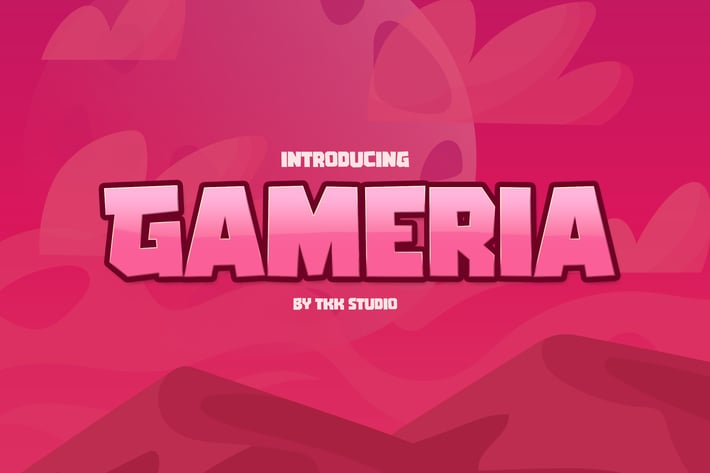
GAMERIA - Blocky gaming font
GAMERIA – A Bold and Action-Packed Font for Gamers
GAMERIA retro display font is crafted with heavyweight geometric forms, blocky terminals, and a playful, pixel-era attitude, making it a perfect fit for anything that needs an energetic, nostalgic vibe. Its thick structure ensures visibility even at a glance—ideal for vibrant gaming interfaces, children's books, or cartoon-style branding. The font’s presence is assertive yet fun, drawing inspiration from retro consoles while keeping its style crisp and versatile.
GAMERIA thrives in gaming culture, playful branding, and kids media design. It naturally draws attention on YouTube thumbnails, game titles, mobile app UIs, or educational content. Whether you're launching a new mobile game, designing a toy package, or creating bold statements for posters, GAMERIA gives your message both impact and personality.
- Blocky, geometric letters inspired by retro video games
- Thick, high-contrast weight for bold readability
- Fun, nostalgic visual rhythm with pixel-style flavor
- Best suited for titles, posters, thumbnails, games, and kid-themed branding
- Clear visibility across print and digital media